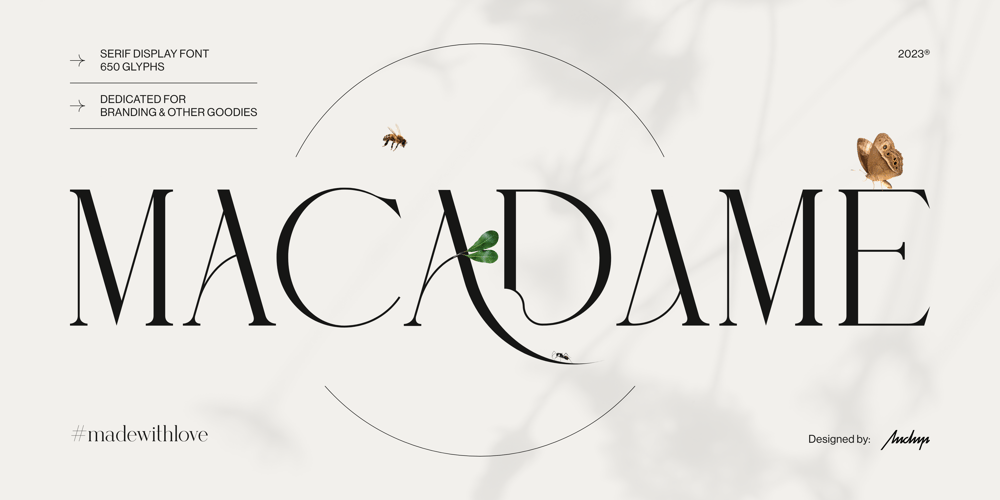
Macadame Font Family was designed by Aneta Górnik and published by AN Studio. Macadame contains 1 styles and family package options. Macadame is a serif display font especially dedicated for branding, headlines, or packaging purposes. It is a feminine yet powerful font with stunning aesthetics and an unmistakable character.